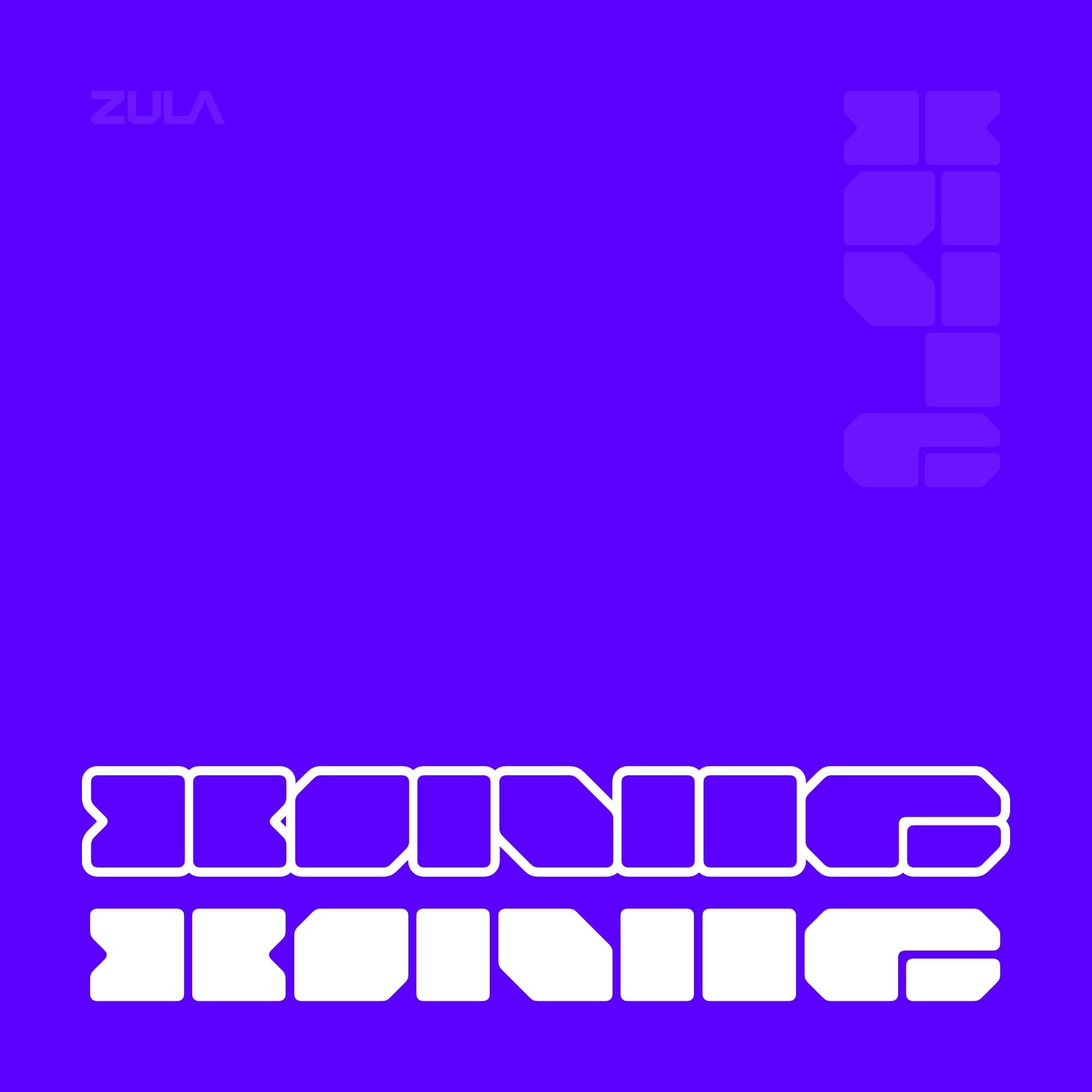
<p><strong>Xavie Typeface</strong> is a geometric abstract typeface that gives a retro or y2k feel.<br>This poster is suitable for display, posters, logos, brands, apparel, and more.</p> <p>Xavie includes:<br>- TTF/ OTF<br>- WOFF (Extended Only)<br>- A-Z Uppercase character set<br>- 0-9 Numerals<br>- Basic Punctuation and Marks</p>